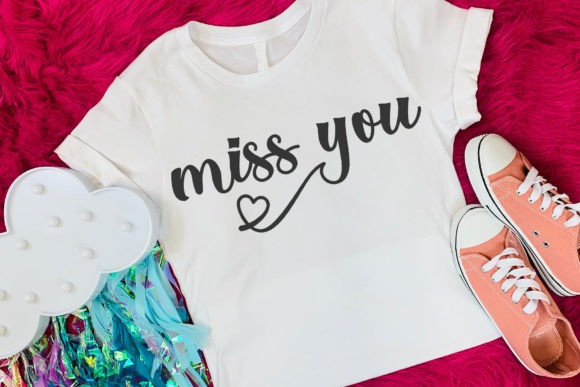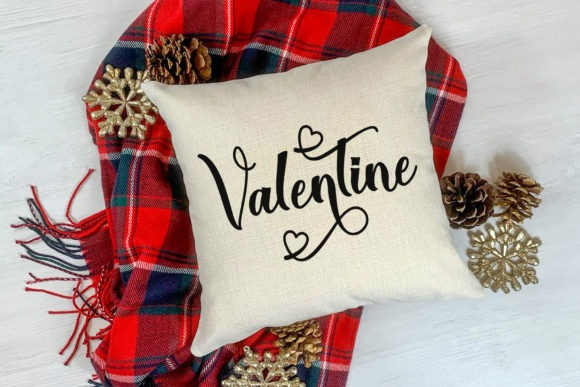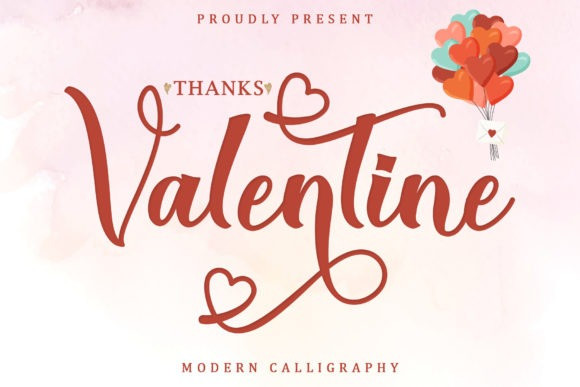
Thanks Valentine Script Font
Thanks Valentine is a lovely and delicate script font that exudes elegance and class. This font was particularly crafted for those who need a beautiful and refreshing look to their designs.